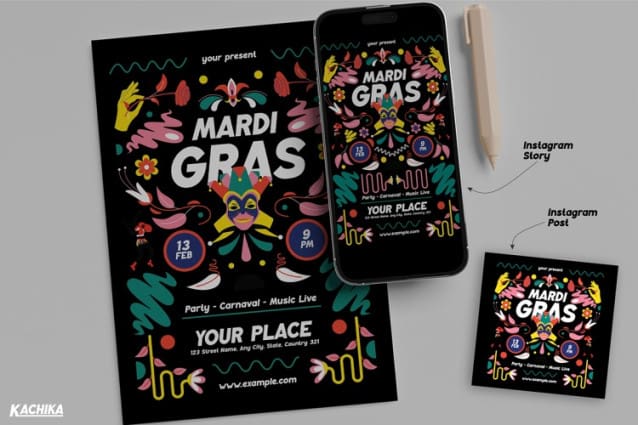
Kachika Font
Kachika Font is a bold and playful typeface designed to make a striking visual impact. Its thick, dynamic letterforms exude energy and confidence, capturing the vibrant spirit of retro design. This font’s clean yet slightly quirky style is enhanced by subtle curves and geometric precision, creating a perfect balance between modern versatility and nostalgic charm. With its bold presence, KACHIKA is ideal for projects that demand attention and creativity.
Additionally, the font stands out for its adaptability to various creative contexts. Whether used for posters, branding, packaging, or digital media, it instantly brings an element of fun and originality. The vibrant and colorful aesthetic showcased in Retro Font KACHIKA makes it a fantastic choice for designs that need to evoke joy, excitement, or a sense of playfulness. Its versatility allows designers to experiment with both minimal and intricate compositions, ensuring that it fits a wide range of themes.